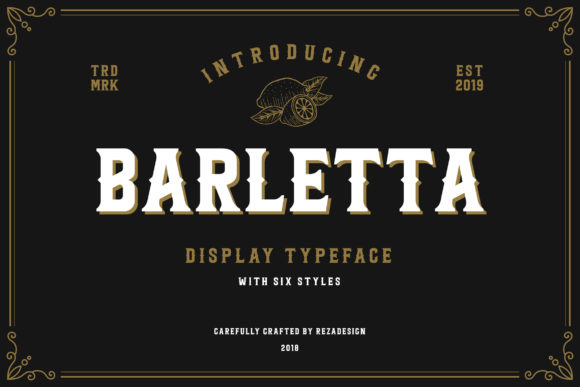
Barletta Font
Barletta Font is perfect for Mediterranean restaurant branding, Italian wine labels, traditional olive oil packaging, artisanal pasta company logos, European café signage, coastal resort marketing, heritage travel materials, authentic cooking class promotions, rustic vineyard communications, and Mediterranean lifestyle brands.
Barletta Font creates excitement because it captures the warm elegance and timeless charm of Mediterranean culture with its graceful letterforms and coastal-inspired character design. The font's refined curves and European sophistication instantly evoke sun-soaked coastlines and authentic Mediterranean hospitality, making any brand appear cultured and authentically European. Its carefully crafted Mediterranean details and coastal character create an immediate sense of European heritage that captivates audiences seeking authentic cultural experiences, Mediterranean lifestyle, and products that celebrate the rich traditions and timeless beauty of European coastal living.
The Barletta Font family includes multiple weights and styles: Regular, Bold, Light, Medium, Italic, Condensed, Extended, Classic, Coastal, and Heritage versions. Each variant preserves the font's signature Mediterranean character while offering different levels of European elegance and coastal styling suitable for various cultural and hospitality applications.
This distinguished typeface brings the authentic spirit of Mediterranean culture into contemporary design projects with remarkable European sophistication and coastal charm. Barletta Font Free Download provides hospitality brands and cultural organizations with access to premium Mediterranean typography that embodies the genuine essence of European coastal traditions and cultural refinement. The font's elegant heritage and Mediterranean appeal make it ideal for businesses seeking to establish connections with European culture and Mediterranean lifestyle values. Whether you're creating branding for authentic Mediterranean restaurants, designing materials for European travel destinations, developing packaging for traditional Mediterranean products, or producing marketing content for coastal hospitality venues, this font delivers the authentic Mediterranean atmosphere that resonates with audiences seeking genuine European experiences and cultural sophistication. Its versatile design ensures excellent performance across both traditional printed materials and contemporary digital applications while maintaining the character of authentic Mediterranean typography. The font excels in applications requiring cultural authenticity and European elegance. Hospitality professionals appreciate its ability to convey Mediterranean heritage while remaining highly functional for various cultural communications and hospitality promotional materials. The comprehensive character set includes European decorative elements and extensive international language support, making it perfect for global Mediterranean brands and international cultural organizations seeking to communicate authentic European culture, Mediterranean sophistication, and coastal lifestyle values to diverse worldwide audiences who appreciate European heritage, embrace Mediterranean traditions, and seek the timeless elegance that defines authentic Mediterranean culture and European coastal living excellence.